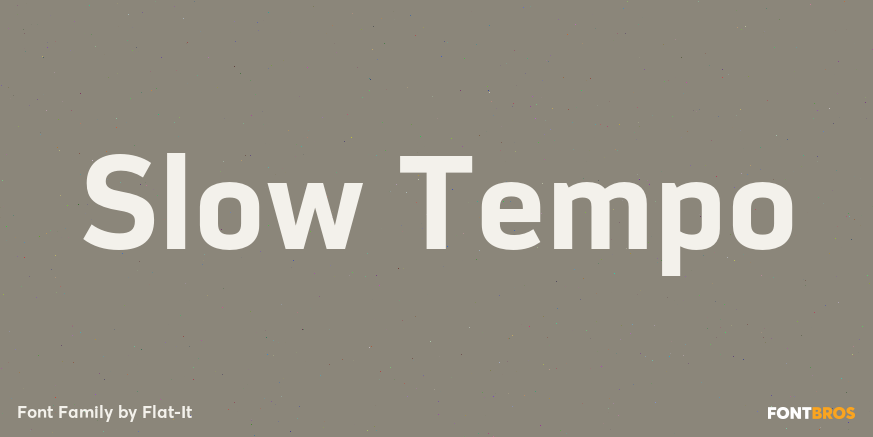
Slow Tempo
About Slow Tempo
Slow Tempo is a relaxed, loose-fit font that you can easily enjoy. Slow Tempo has basic, natural and neutral letterforms and skeletons for a wide range of usage. Though, there are some distinctive features. As you can see, Slow Tempo has low curvature…